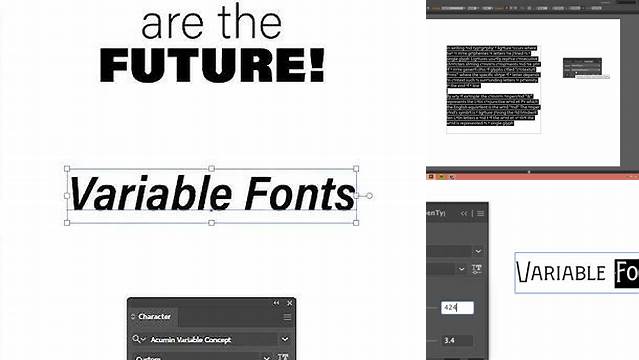
Mastering Variable Fonts In Illustrator CS6
Hey everyone! Let's dive into something super cool: variable fonts in the context of Adobe Illustrator CS6, even though the program itself doesn't natively support them like more recent versions. But don't worry, we can still explore the concept, understand their awesome capabilities, and even find some creative workarounds to get a similar effect. This guide is for anyone who's curious about the future of typography and how to leverage the power of dynamic fonts, even if you're rocking the older CS6 version. We'll cover what variable fonts are, why they're so exciting, and how you can still benefit from them in your workflow. We'll also consider how to get similar effects in Illustrator CS6.
Understanding Variable Fonts: The Future of Typography
Variable fonts, guys, are like the superheroes of typography. Imagine having one font file that can morph and change in many different ways – weight, width, slant, optical size, and a whole bunch of other parameters – all controlled within that single file. This is a huge leap from traditional fonts where you needed separate files for each weight (light, bold, black), style (italic, regular), or width (condensed, extended). With variable fonts, you get incredible flexibility and control. You can create smooth transitions between different styles, design custom typefaces on the fly, and optimize your text for different sizes and displays. Think of it like this: instead of having a toolbox full of individual screwdrivers, you have one adjustable screwdriver that can handle any screw. That’s the power of variable fonts! They're based on the OpenType Font Variations specification, and they’re supported by modern browsers and design software. This means that when you design with them, you can create truly dynamic and responsive typography. This makes your designs more versatile and adaptable to different contexts. Whether you’re designing a website, a print ad, or a mobile app, variable fonts offer a level of customization that wasn’t possible before. They're also super efficient. Because you're using a single file, your file sizes are smaller than they would be if you were using multiple font files. This is especially helpful if you're designing for the web, where performance is key. They also allow for some very interesting animation possibilities, making your text come alive in ways that were previously limited to static graphics. So, as we explore the concept, we understand that Variable fonts have become a game-changer for designers.
Exploring the Benefits of Variable Fonts for Designers
Now, let's talk about why variable fonts are a designer's dream. First off, flexibility is king. You can fine-tune your typography to perfectly match your design needs. Need a weight that's slightly bolder than regular but not quite as bold as the bold style? No problem! Variable fonts let you dial in the exact weight you need. This level of control is awesome. Secondly, file size efficiency is a massive advantage. Since you're using a single font file, it's much smaller than a collection of individual font files. This is a real win for web designers. Smaller file sizes mean faster loading times and a better user experience. Think about it: faster load times are directly related to the user's engagement. That is why variable fonts matter. Third, creative freedom. You can animate and transform text in ways that were previously impossible. Imagine text morphing smoothly between different styles, or adapting dynamically to the screen size. It opens up a whole new world of design possibilities. You can also use them to create unique, custom typefaces. Variable fonts allow you to design typefaces that are truly one-of-a-kind. You can combine different weights, widths, and styles to create something that's never been seen before. The benefits for designers are immense: reduce file size, create responsiveness, increase control, and boost creative freedom. They make the design process more efficient and give you more control over your designs. That’s why understanding them, even if you’re using an older version of Illustrator, is super important.
Variable Fonts vs. Traditional Fonts: Key Differences
Okay, so let's break down the difference between variable fonts and those old-school, traditional fonts you're probably used to. Traditional fonts are basically static; each weight and style requires its own separate font file. You’d have a file for “MyFont-Regular.otf”, “MyFont-Bold.otf”, “MyFont-Italic.otf,” and so on. This means more files, more bloat, and less flexibility. With variable fonts, you have one single file that contains a whole range of styles. Inside that file, there are axes that control different aspects of the font: weight, width, slant, optical size, and so on. You can smoothly adjust these axes to create any style variation you need. Think of it like a slider bar. You move the slider and the font changes in real-time. The main difference lies in the flexibility and control you get. Traditional fonts give you pre-defined styles, while variable fonts give you a continuous range of possibilities. Variable fonts also excel in file size efficiency. Because you have a single file, variable fonts can be much smaller than a collection of traditional font files. This is super important for web design, where every kilobyte counts. In short, variable fonts offer unparalleled control, file size efficiency, and creative potential, while traditional fonts are limited to predefined styles. In comparison, variable fonts are clearly the superior choice.
How Variable Fonts Enhance Web Design and User Experience
Let's talk about how variable fonts make web design and user experience way better. First, remember those file size advantages we talked about? Well, smaller font files mean faster loading times. Faster loading times are critical for a good user experience. People hate waiting for a website to load. If your site takes too long, they’ll bounce. Variable fonts help keep your site snappy and responsive. Secondly, variable fonts allow for responsive typography. With variable fonts, your text can adapt to different screen sizes and devices. This means your text will always look great, whether someone's viewing your site on a desktop computer, a tablet, or a phone. The text can automatically scale to the right size, and you can adjust the weight and width of the text to optimize readability. This is a game-changer for mobile design. Thirdly, variable fonts enable more dynamic and interactive designs. You can use them to create animations and transitions that respond to user interactions. Imagine text that changes weight or width as the user hovers over it, or text that changes style based on the time of day. This can make your website more engaging and memorable. Variable fonts are not just about aesthetics; they also improve accessibility. You can use them to create text that is easier to read for people with visual impairments. By adjusting the weight and size of the text, you can make sure that everyone can enjoy your content. The ability to make your website super responsive and faster will increase the overall user experience. Variable fonts improve user experience in all of these ways.
Illustrator CS6 and Variable Fonts: Addressing the Compatibility Gap
Now, let's get to the elephant in the room: Illustrator CS6. Unfortunately, Illustrator CS6 doesn't natively support variable fonts. This means you can't directly adjust the font's axes within the program. The software wasn't designed with this capability, which can be a bummer. Don't worry, it's not all bad news, and we can still work around the limitations and create the appearance of a variable font. Because the support wasn’t added until more recent versions of the software. This means, if you're using CS6, you're going to have to be a bit creative. Your options include: using pre-made font variations, creating multiple text layers, and using effects. Let's explore some workarounds. Using pre-made font variations is a common approach. Most variable fonts come with pre-set styles that are the result of the variable axis. So, if a variable font has weight, you can select from pre-made options like